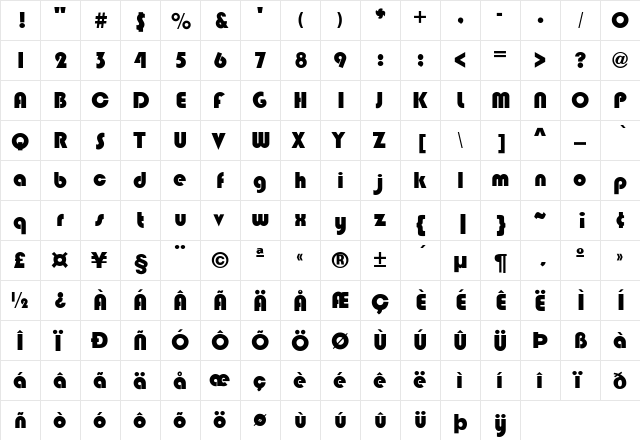
Blippo-Heavy Regular
Blippo-Heavy is a composed and adaptable typeface that performs quietly and consistently across a wide range of design contexts.